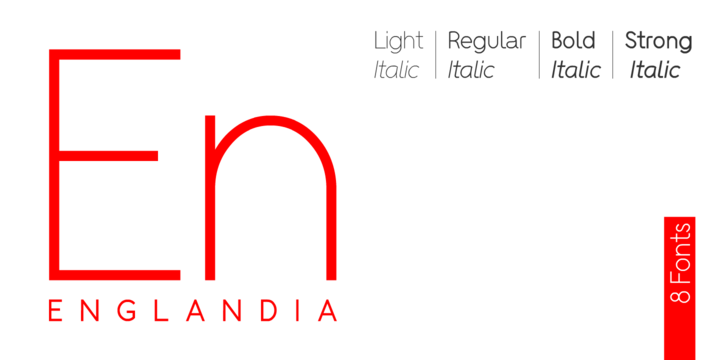
Englandia
by Pavel Lipcean
Contemporary, transparent and useful Sans to create great texts. This is a Sans for any use.
4 weights: Light, Normal, Bold and Strong.
Matching italics for all weights.
Matching small caps for all weights.
Letters like K,X have special treatments, showing the angular parts of the lines. Nuances like this aid in legibility and give Englandia a sensible and rational appearance for both texts and headlines. More…
Designed by Pavel Lipcean, 2014